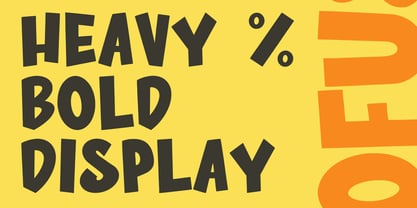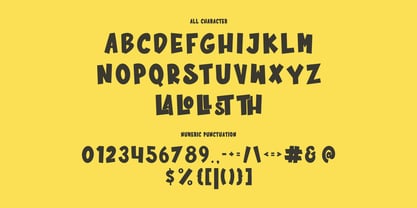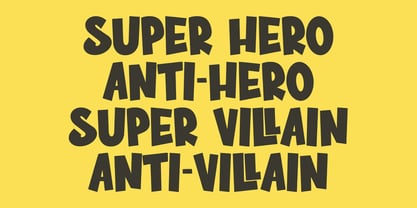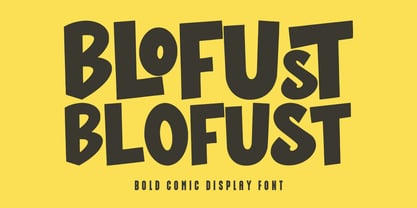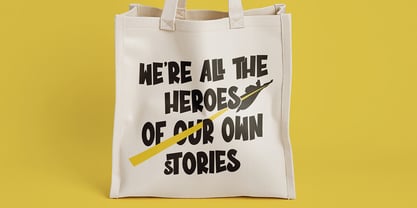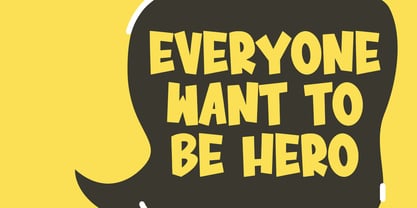
MC Blofust
The MC Blofust Font Family was designed by Gilang Maulana and published by Maulana Creative. MC Blofust contains 1 styles. More about this family
Blofust is a playful modern display comic font. Bold stroke, fun character with a bit of ligatures. To give you an extra creative work. Blofust font support multilingual more than 100+ language. This font is good for logo design, Social media, Movie Titles, Books Titles, a short text even a long text letter and good for your secondary text font with script or serif. Make a stunning work with Blofust font.